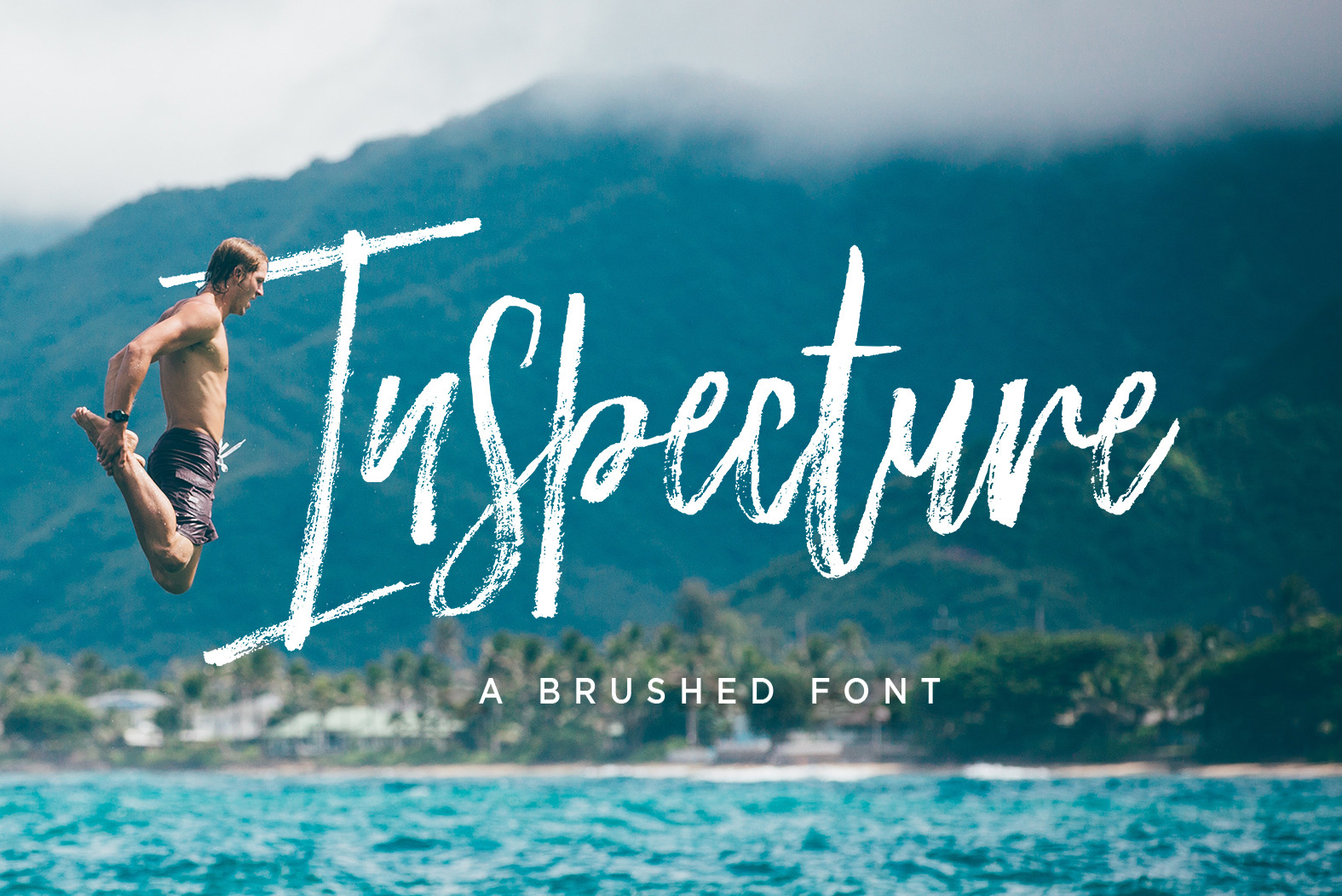
Inspecture Brush Font
INTRODUCING "Inspecture Brush Script ! " A new font brushed textured with Perfect,also equipped with extra swashes. Perfect for brand projects, logos, product packaging, posters, invitations, greeting cards, news, blogs, everything including personal charm.